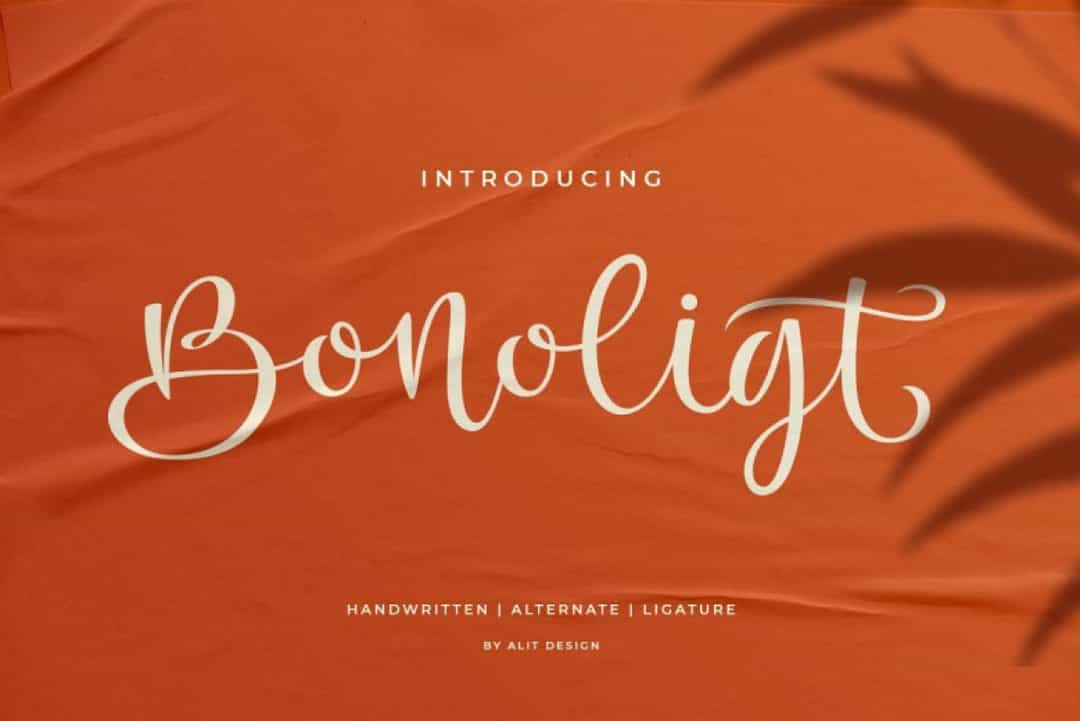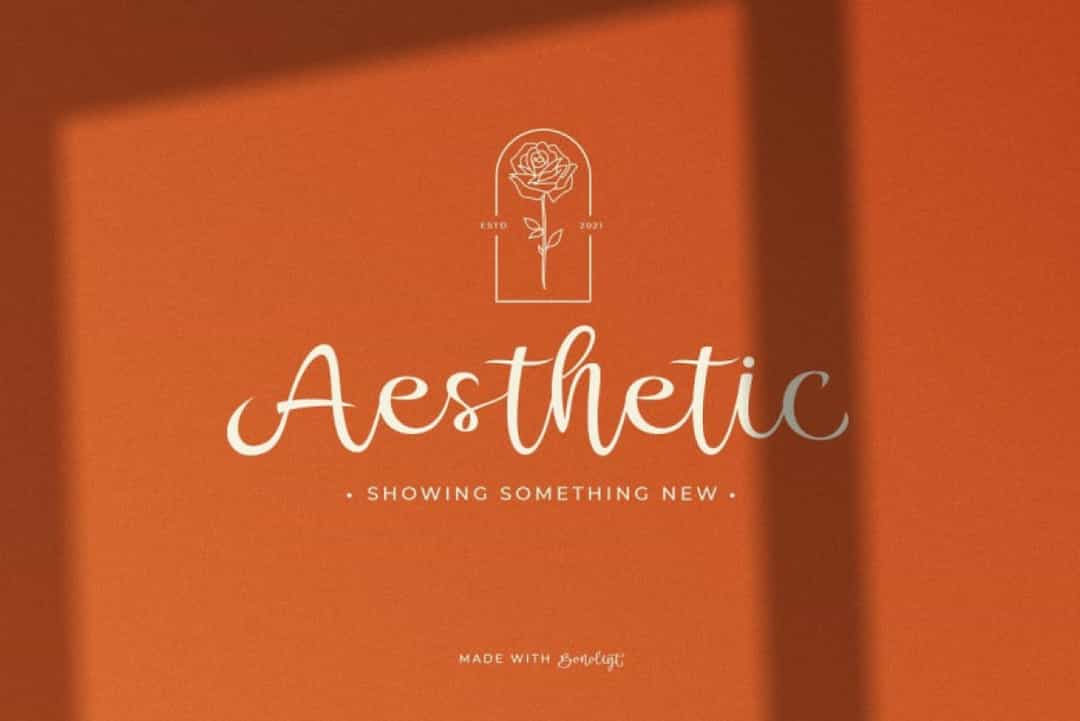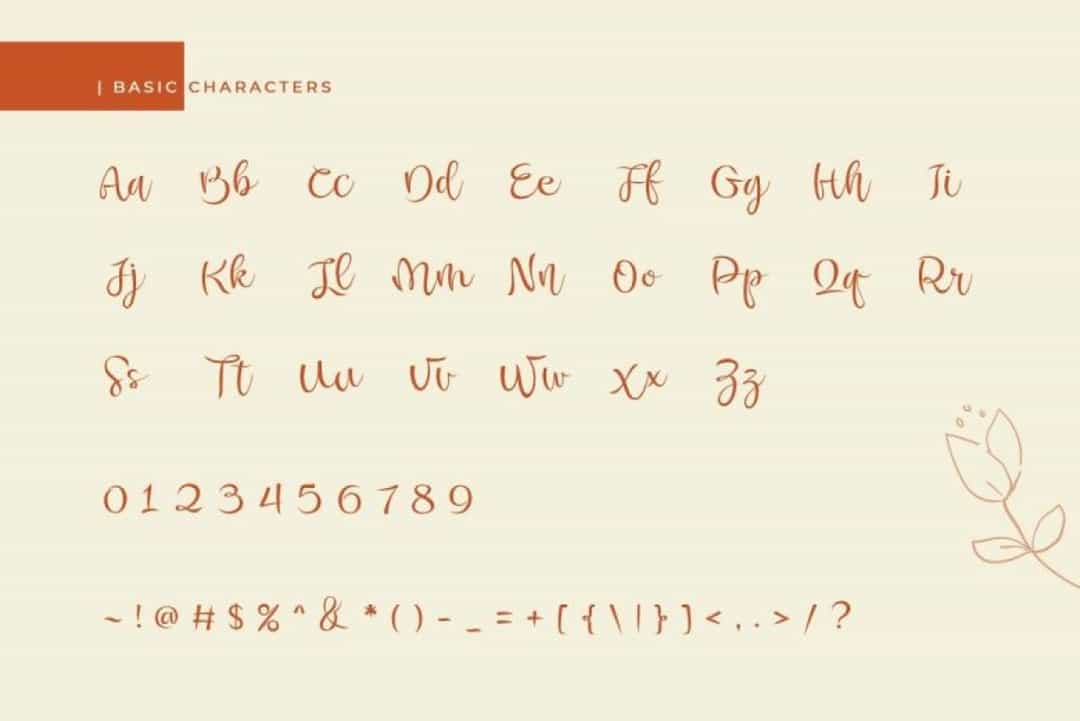
Bonoligt is an elegant and distinctive signature script font. Featuring captivating ligature surprises with different font characters, Bonoligt makes for the ideal design font to use on invitation cards, quotes and product packaging as well as social media or website!